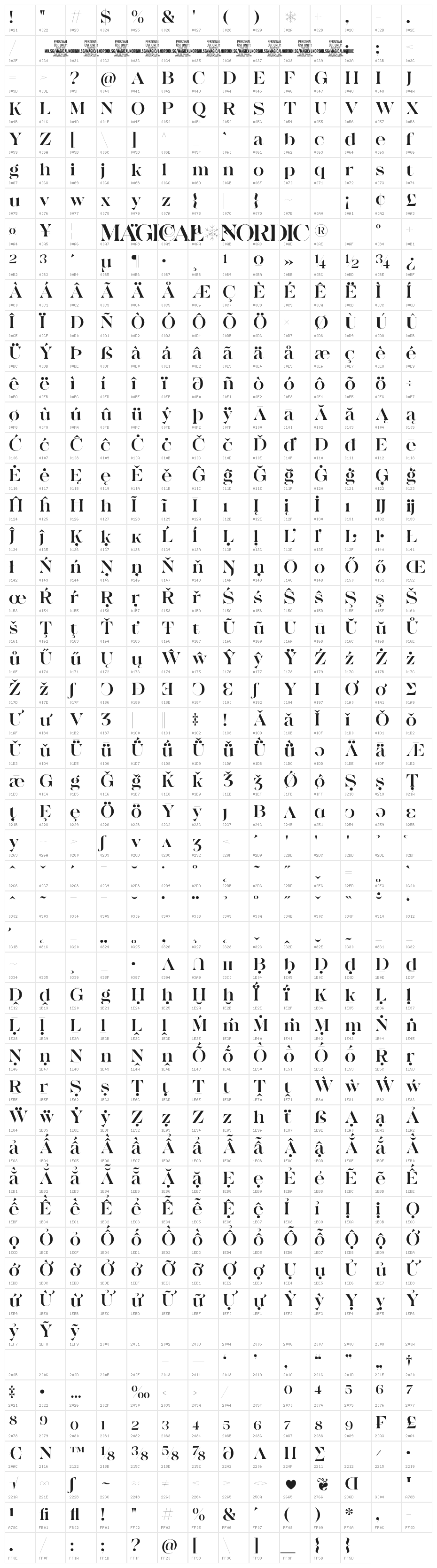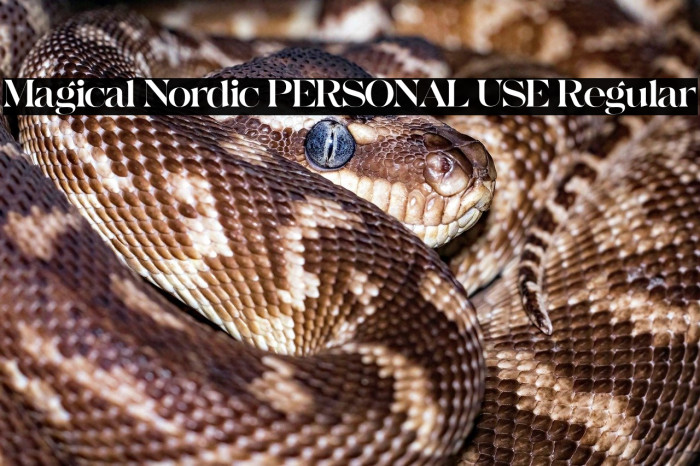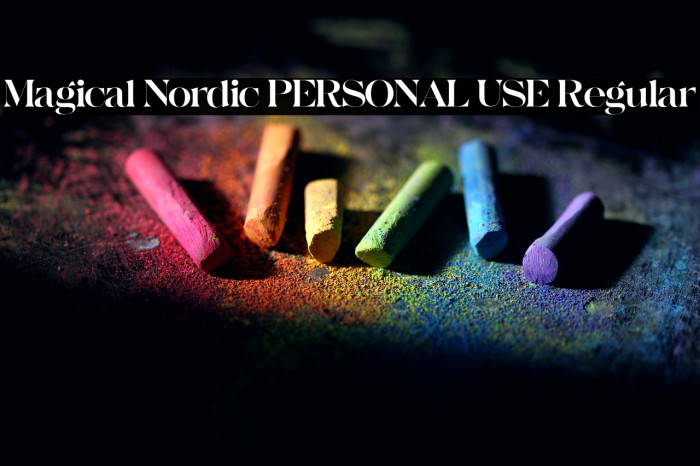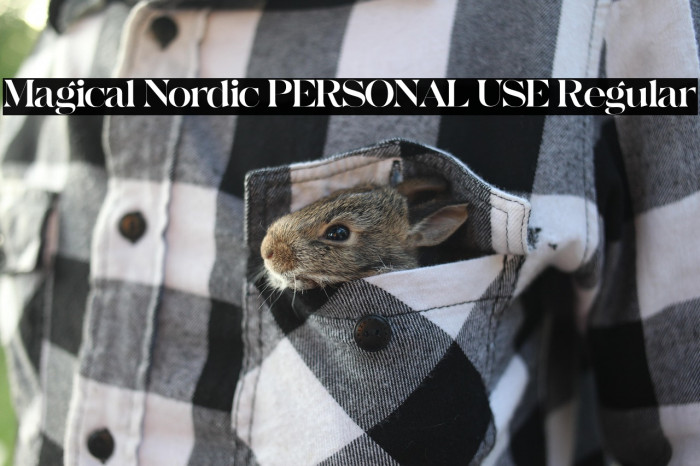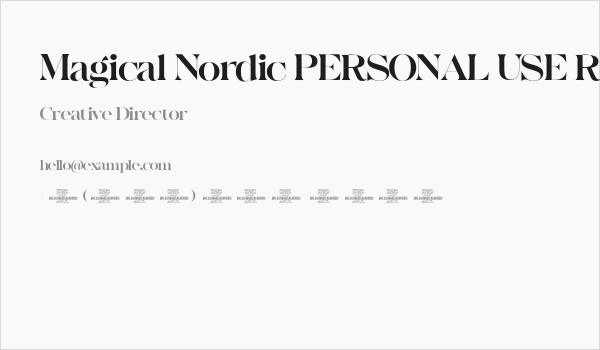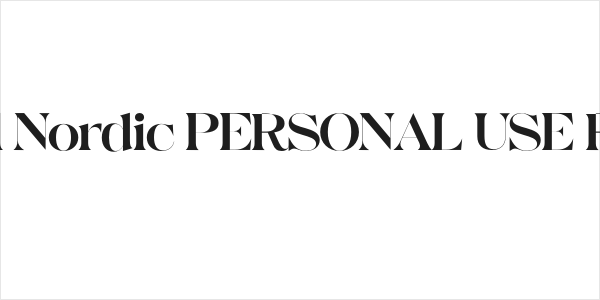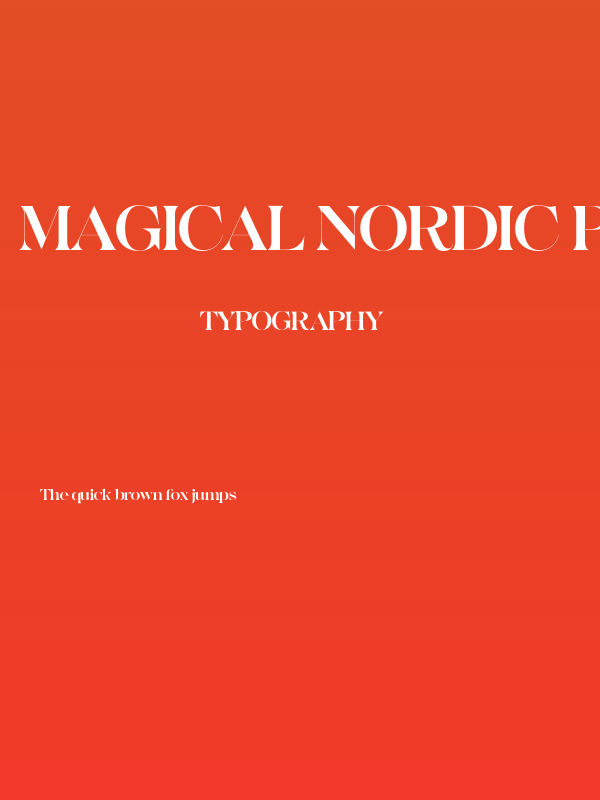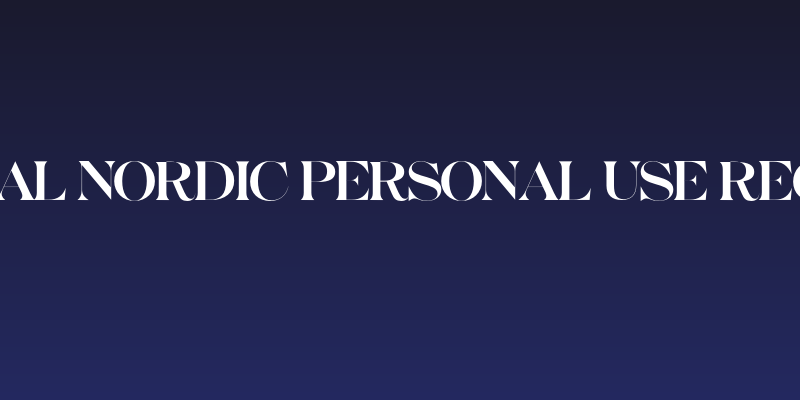
Magical Nordic PERSONAL USE Regular Font
Magical Nordic PERSONAL USE Regular Description
This font features a bold and striking design with high contrast between thick and thin strokes, creating a dramatic and elegant appearance. The uppercase letters are particularly distinctive, with sharp, angular serifs and a modern flair. The lowercase letters maintain a consistent style, offering a harmonious blend of traditional serif elements with a contemporary twist. The numerals and special characters are equally bold, ensuring readability and visual impact. This font's unique style makes it suitable for projects that require a touch of sophistication and boldness.
| Use Case | Headlines, Logos, Editorial Design |
| Proposed Projects | Ideal for branding, editorial design, luxury product packaging, and high-impact headlines. |